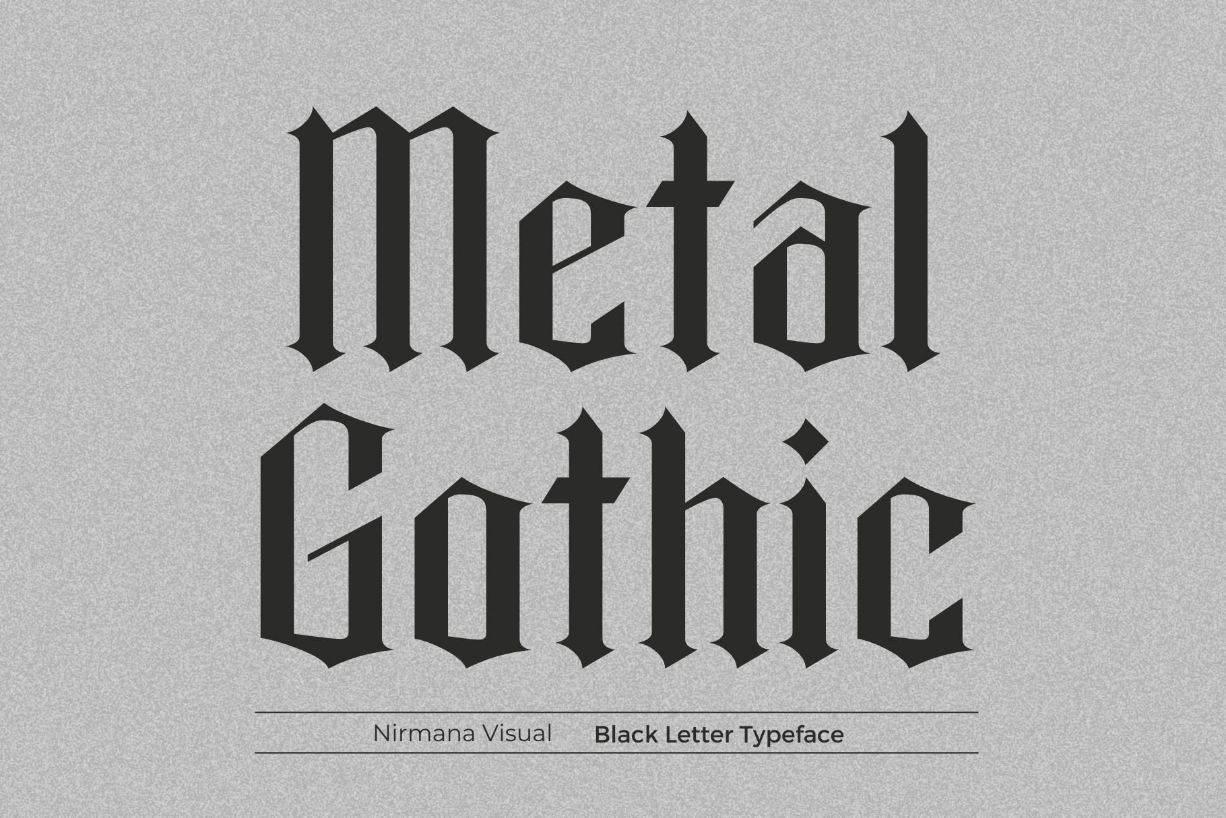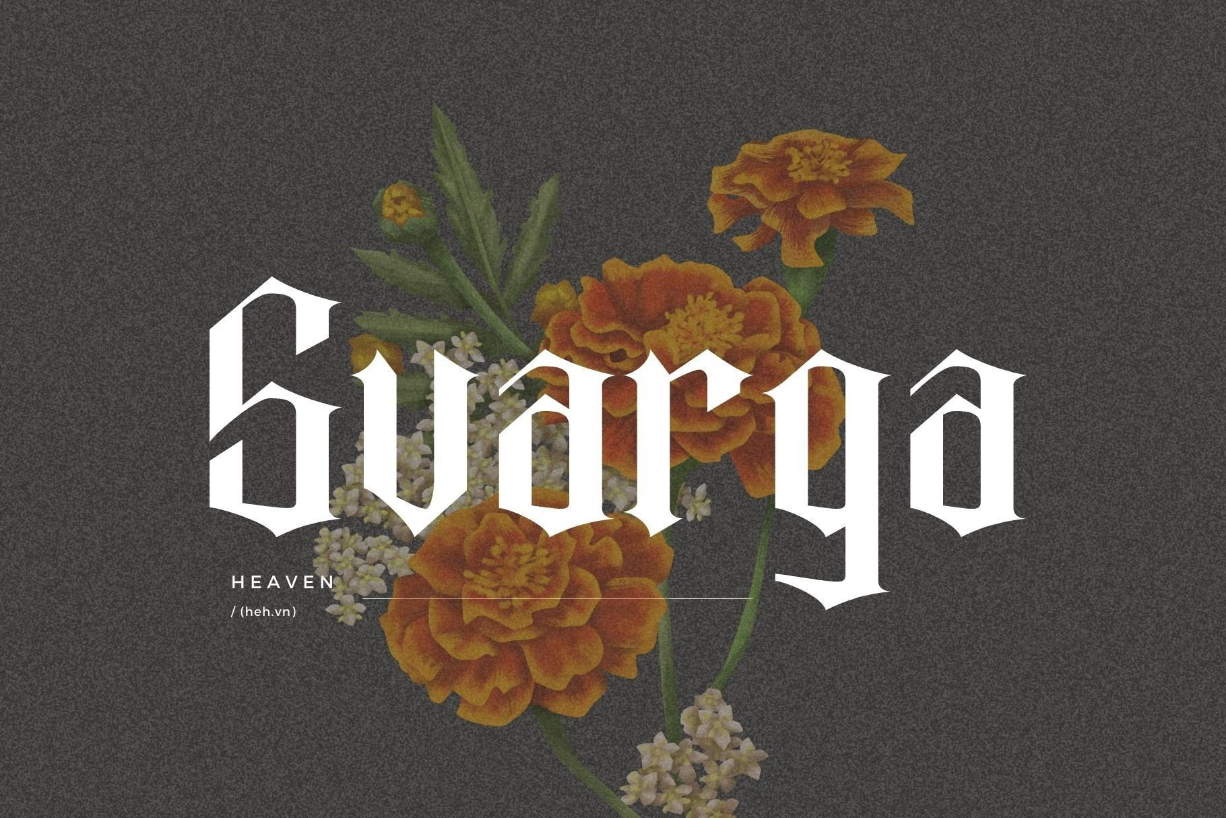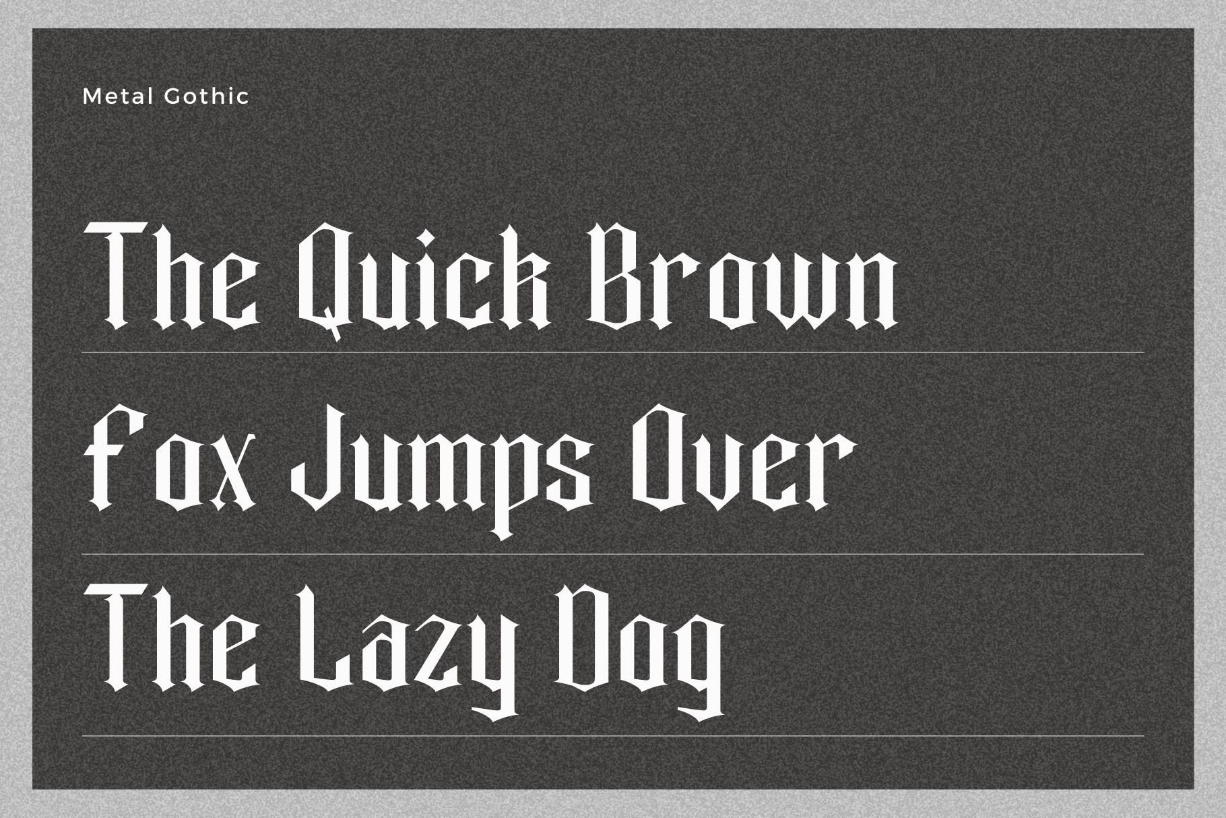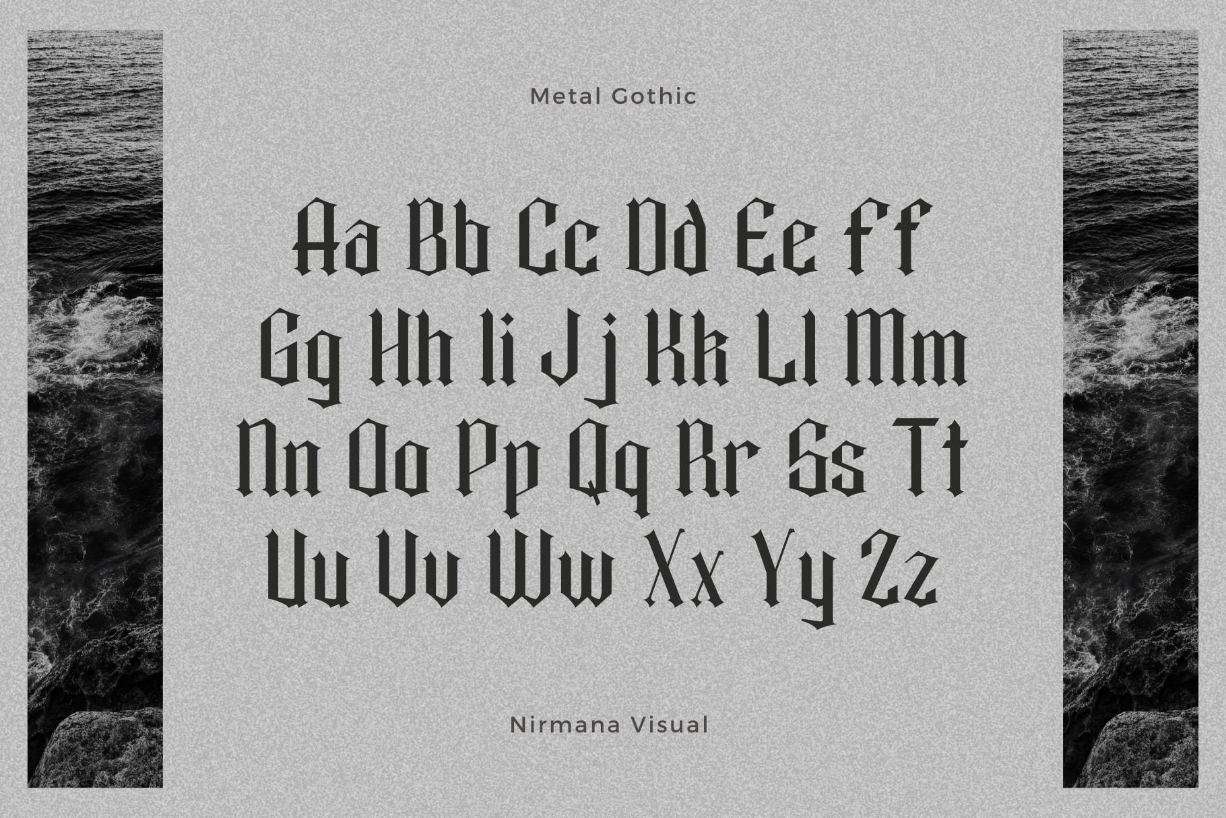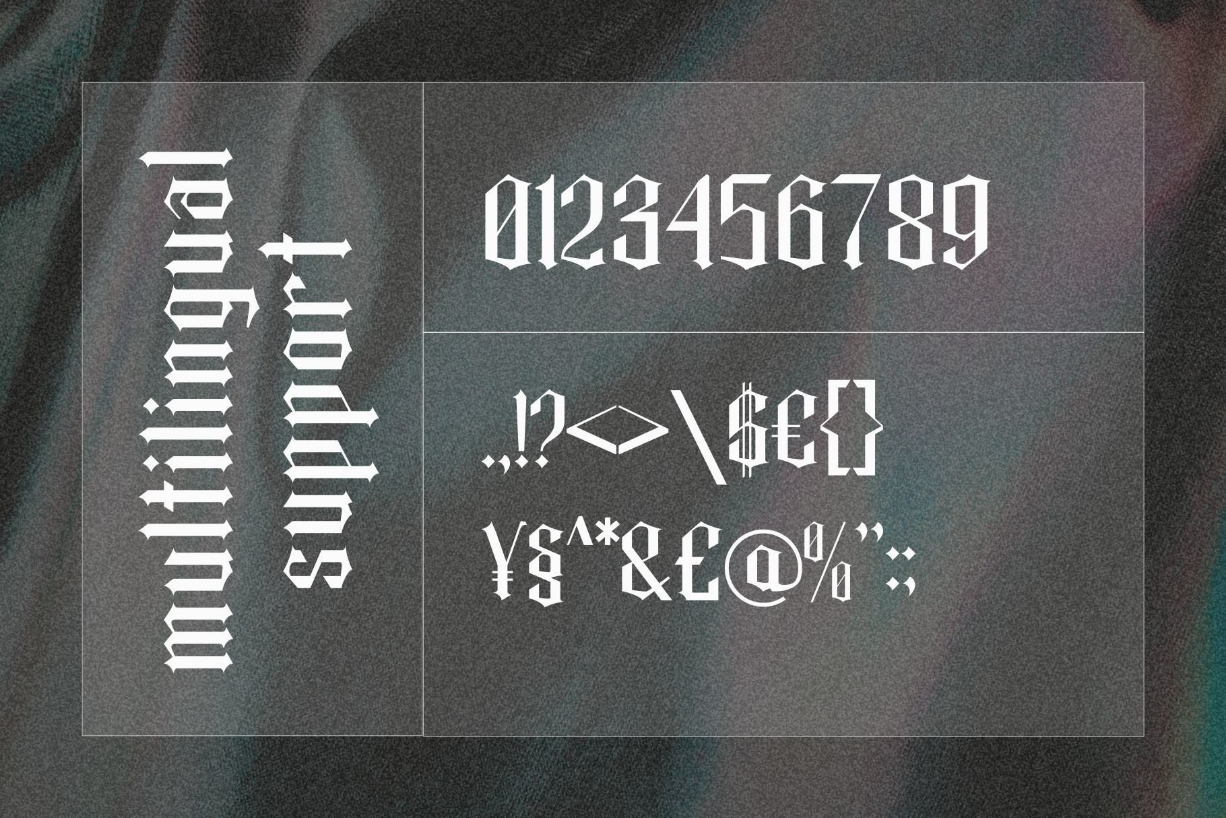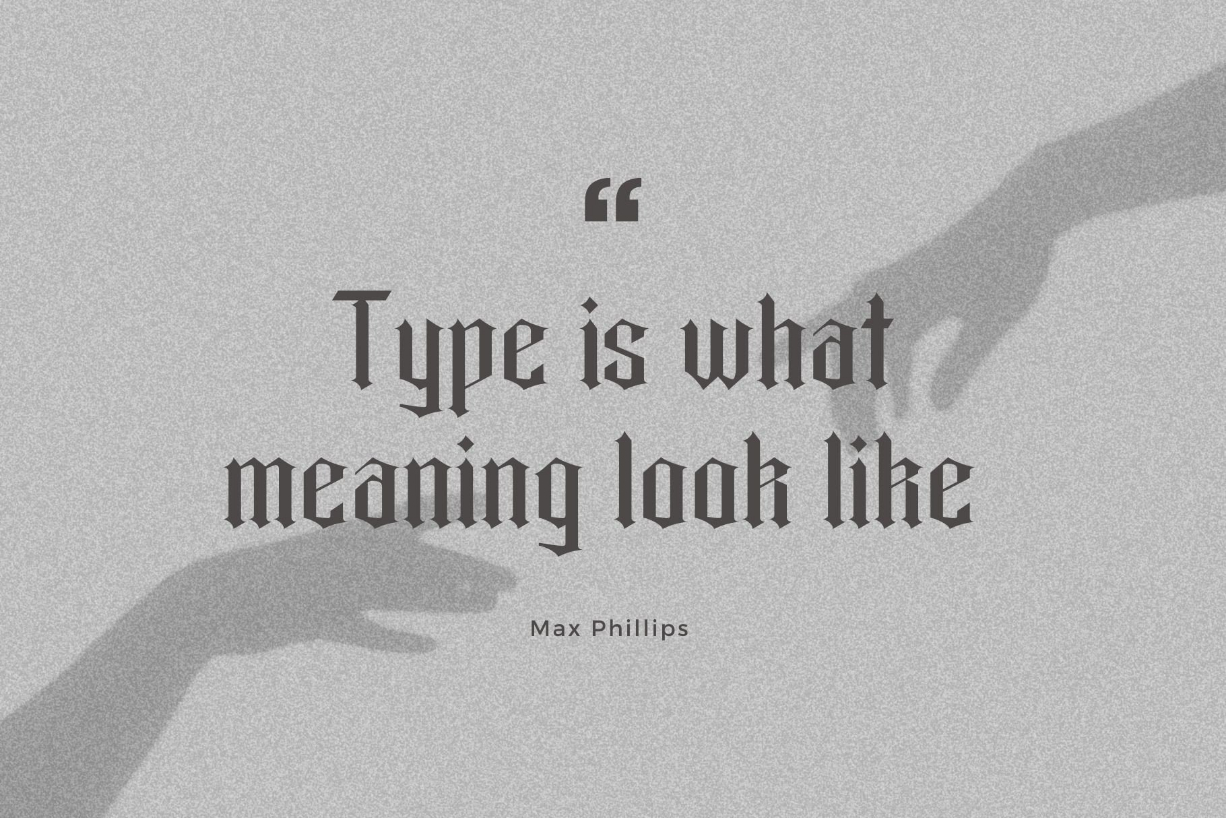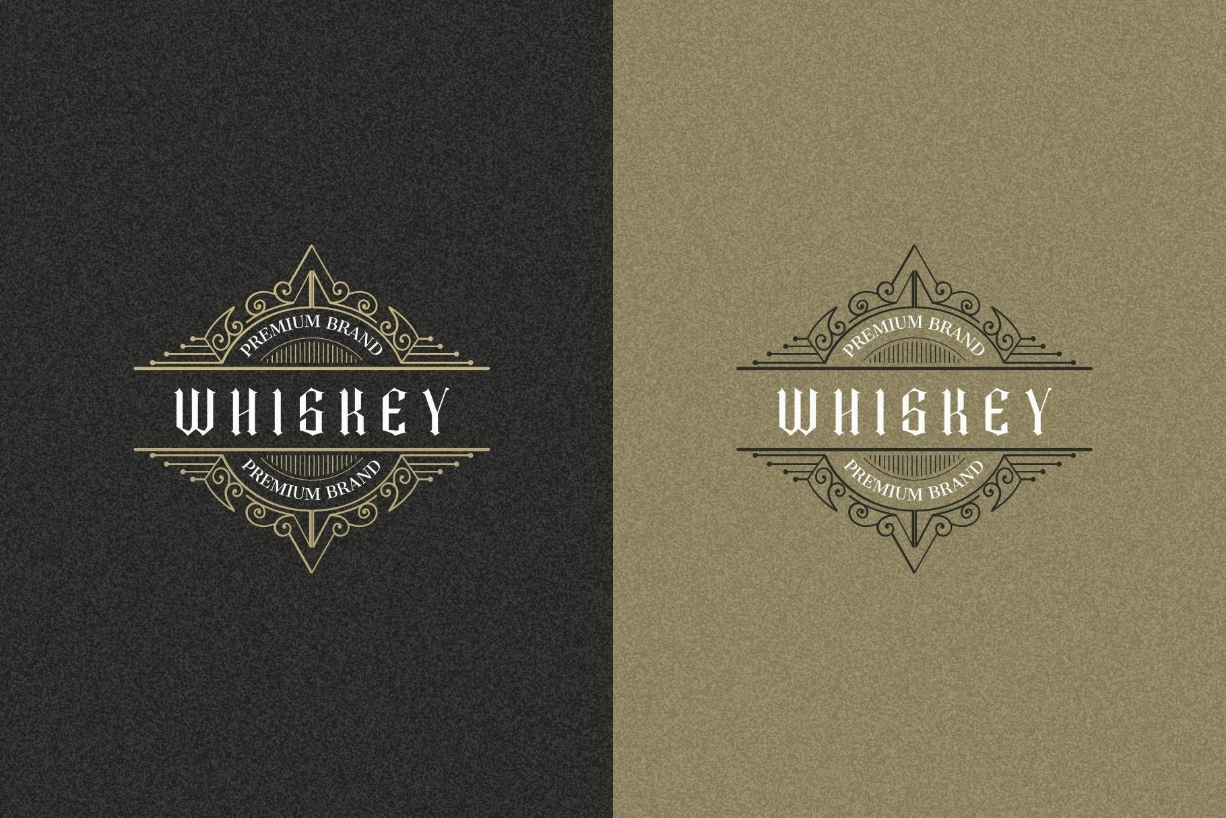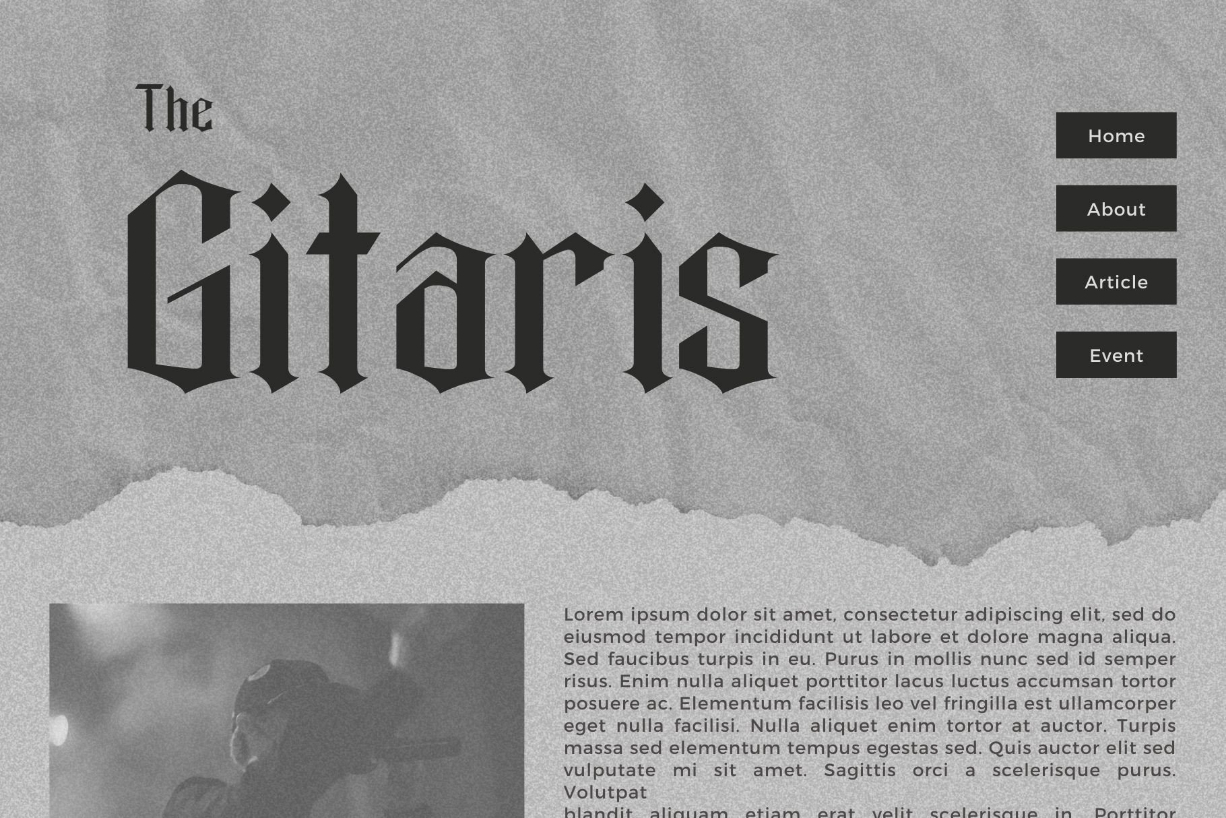
Metal Gothic Font
About Metal Gothic Font
Metal Gothic is a stylish and bold blackletter font. Metal Gothic offers beautiful typographic harmony for a diversity of design projects, including logos and branding, social media posts, advertisements or product designs.